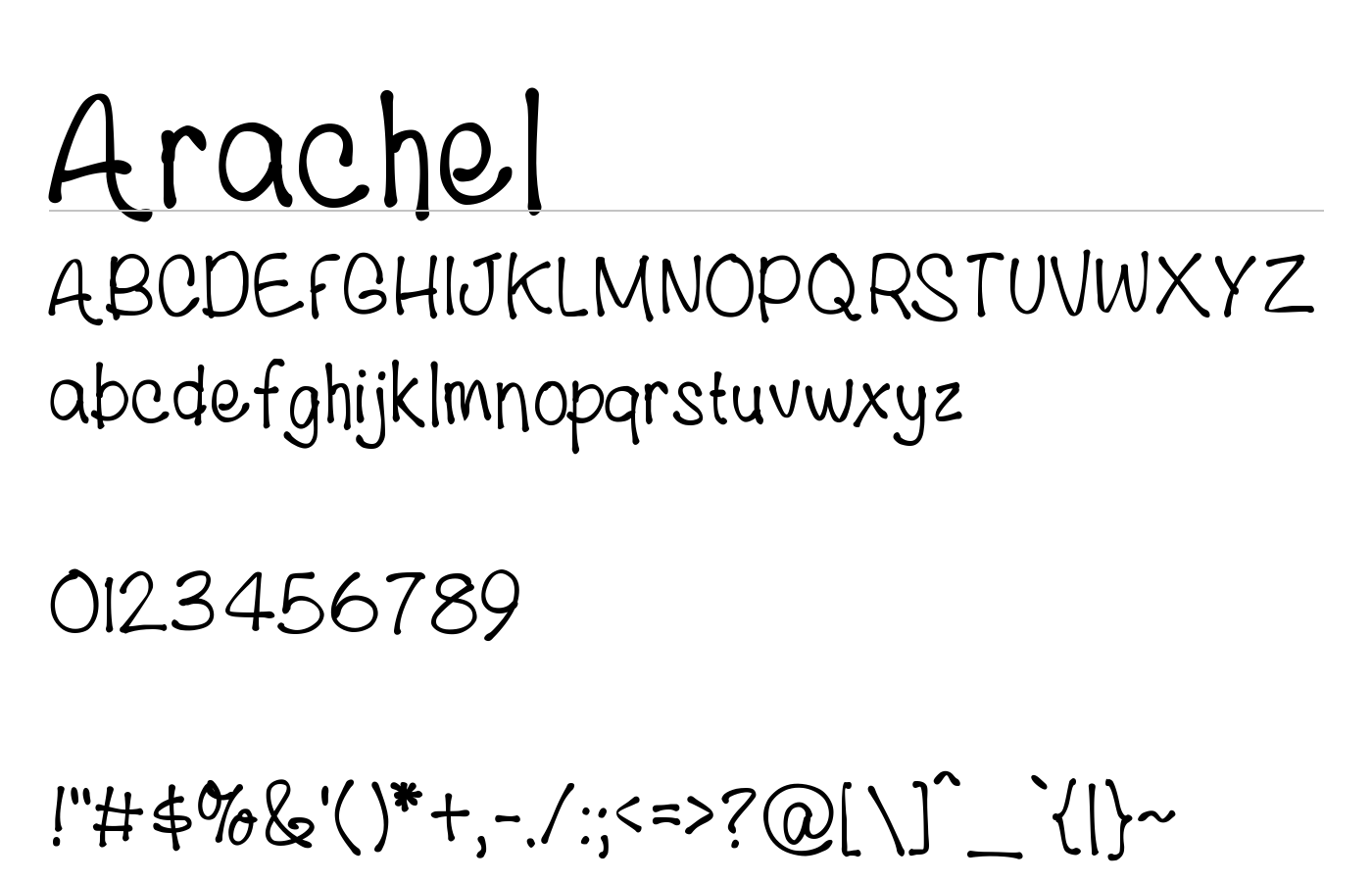
Arachel is a playful, casual handwritten font characterized by its thin, slightly irregular strokes and tall, narrow letterforms that give it a friendly and approachable feel. Its clean, unadorned style works well for informal designs, making it ideal for children's books, greeting cards, or creative branding that seeks a personal touch. This font’s simplicity and charm make it an excellent choice for projects that want to convey warmth and individuality without sacrificing readability.
Arachel Font
About Arachel Font